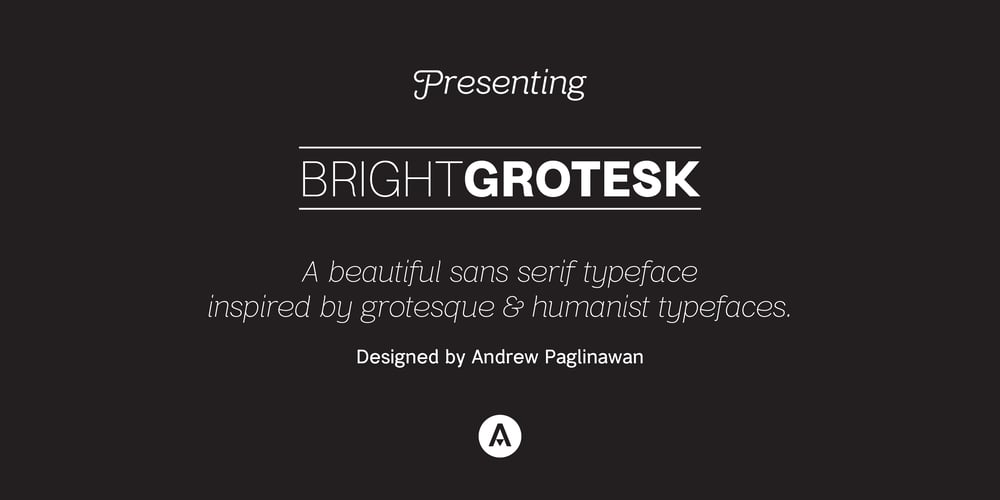
Bright Grotesk Font Family was designed by published by Andrew Paglinawan. Bright Grotesk contains 16 styles and family package options. Bright Grotesk is inspired by grotesque & humanist typefaces suggesting a serious yet friendly personality. It is designed to be legible in small sizes yet charmingly attractive in large settings. Bright Grotesk is a neutral design with a subtle touch of flair. It feels old but looks new, warm yet active, symmetrical yet organic, classic yet modern. Bright Grotesk has great details that reveals in display sizes and can be felt in small sizes as well.